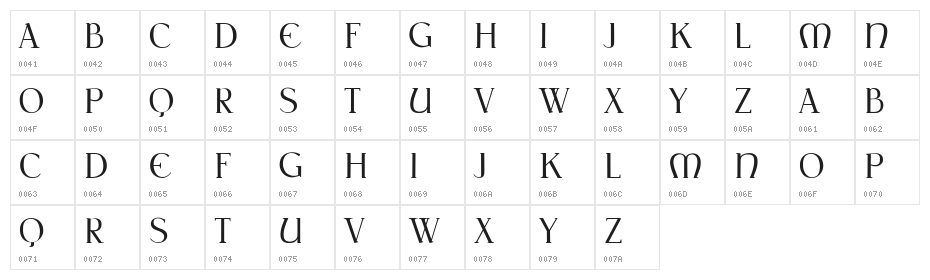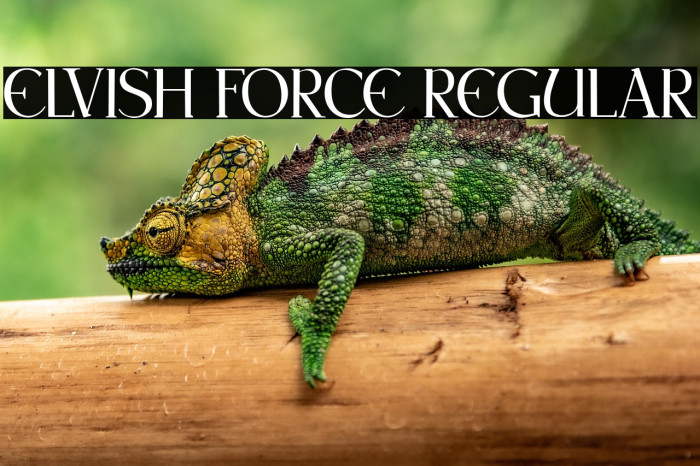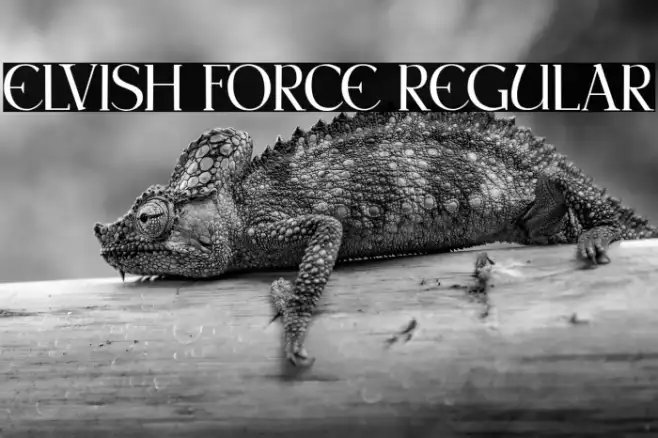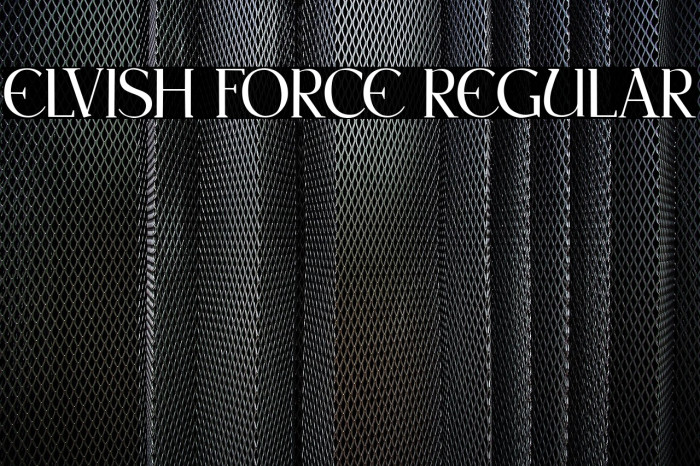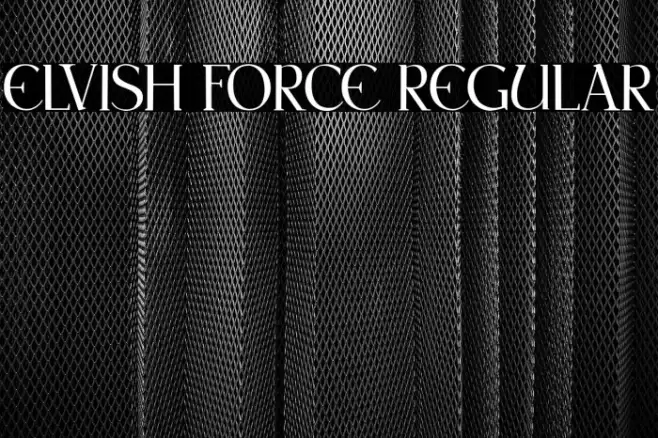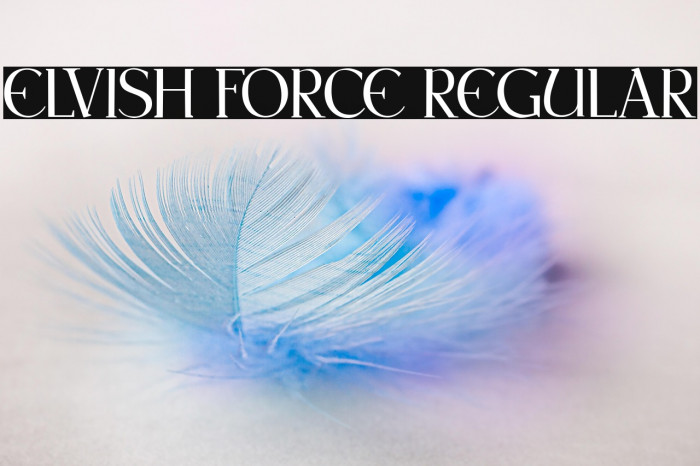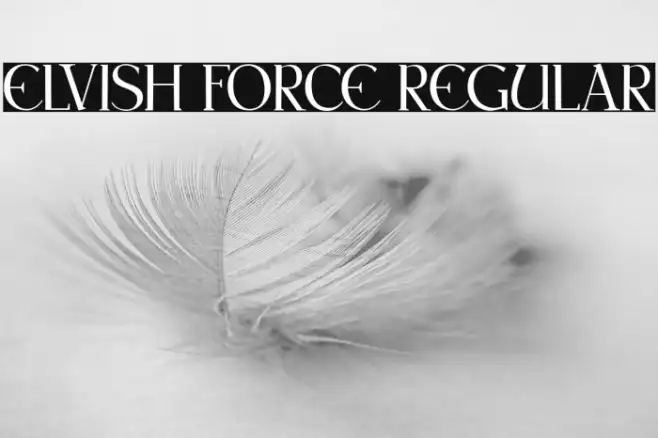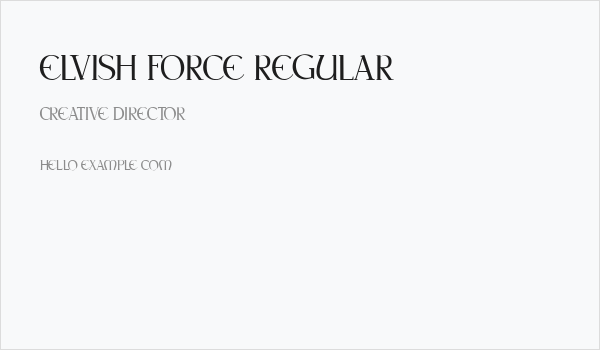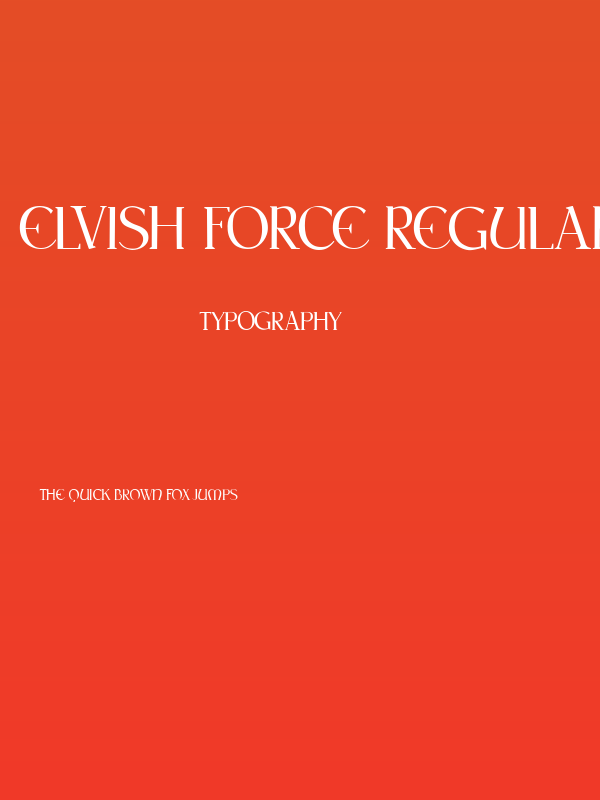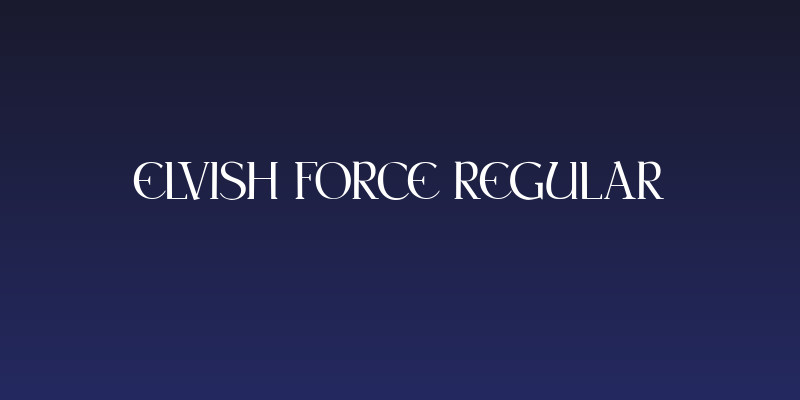
Elvish Force Regular Font
Elvish Force Regular Description
This font features a unique blend of elegance and mystique, characterized by its elongated and slightly curved letterforms that evoke a sense of fantasy and otherworldliness. The uppercase letters are particularly striking, with their tall, slender shapes and subtle serifs that add a touch of sophistication. The lowercase letters maintain a consistent style, ensuring readability while preserving the font's distinct personality. The numerals and special characters are crafted with the same attention to detail, making this font versatile for various applications. Its overall appearance is both modern and timeless, suitable for projects that require a touch of elegance and creativity.
| Proposed Projects | Ideal for fantasy-themed designs, book covers, movie posters, and branding that requires a touch of elegance and mystique. |